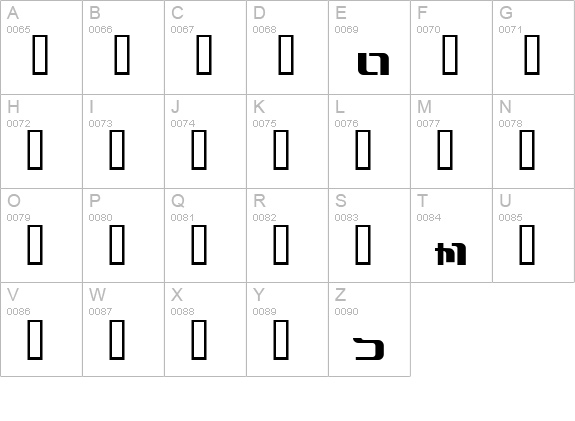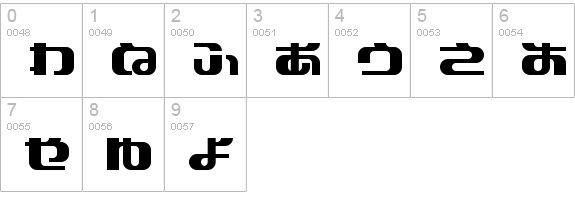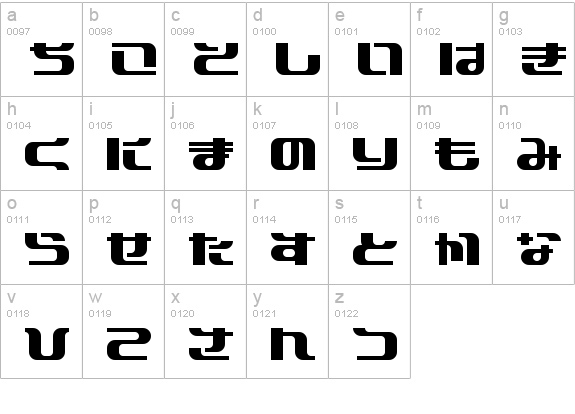
Introducing I2Poï¿¿ï¿¿ed font, a stunning and captivating typeface that will elevate your designs to new heights. This unique font showcases a perfect blend of elegance and creativity, making it the perfect choice for any project that demands attention. I2Poï¿¿ï¿¿ed font features intricately designed letterforms with a modern twist. Each character is carefully crafted to create a harmonious flow, resulting in a visually striking and highly legible typeface. Whether you're designing a logo, branding materials, or even a website, this font will effortlessly add a touch of sophistication and professionalism to your work. But what sets I2Poï¿¿ï¿¿ed font apart from the rest is its versatility and adaptability. This font is ideal for a wide range of design applications, from print to digital media. Its clean lines and well-defined curves ensure that it remains readable even at small sizes, making it perfect for body text as well. And the best part? I2Poï¿¿ï¿¿ed font is absolutely free! Yes, you read that right. This incredible font is freely available to download at FontsMarket.com, your go-to destination for high-quality and unique typefaces. Now, you can access this exceptional font without any restrictions, allowing you to unleash your creativity without breaking the bank. So why wait? Experience the beauty and versatility of I2Poï¿¿ï¿¿ed font today. Download it for free at FontsMarket.com and watch as your designs come to life with a touch of elegance and sophistication. Give your projects the attention they deserve with this remarkable font that is sure to leave a lasting impression.